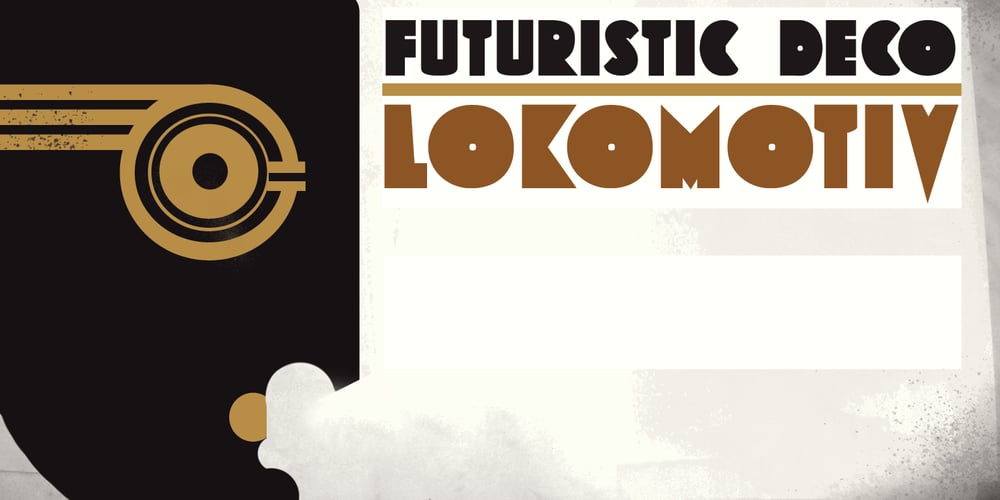
Lokomotiv Font Family was designed by David Kerkhoff and published by Hanoded. Lokomotiv contains 1 styles and family package options. The 1930 Geneva Motor Show (Salon International De l’Automobile Et Du Cycle) showcased a lot of new cars, but one item in particular took my interest: the amazing art deco poster announcing the show. Lokomotiv font was based on this poster. It is a very deco-ish font, futuristic, angular, with bold squares, rounds and triangles. As I had to work with just a handful of glyphs, and needed to fill an entire font, I made up the missing ones myself. Lokomotiv, by the way, is German for Locomotive.